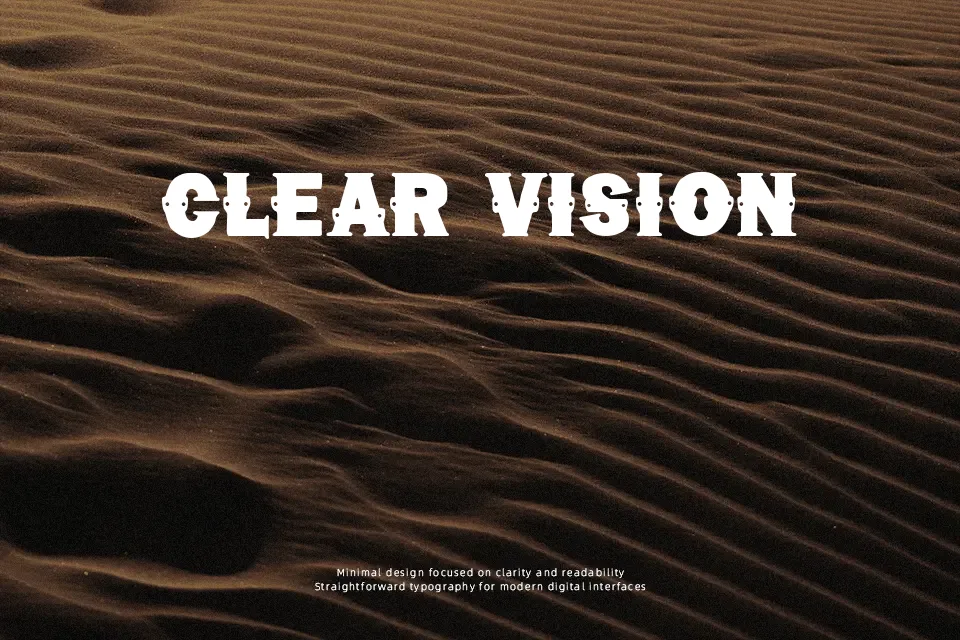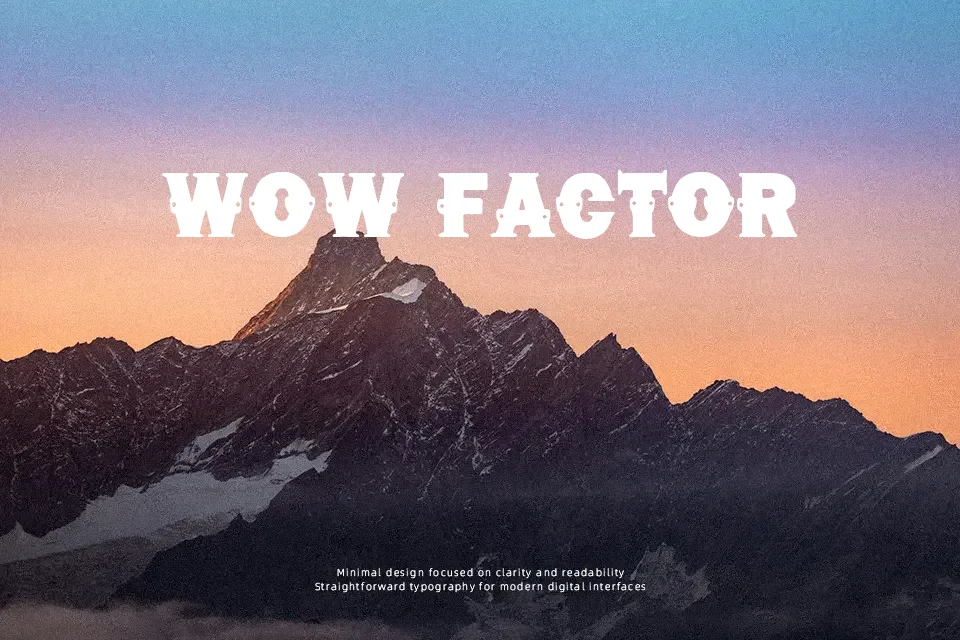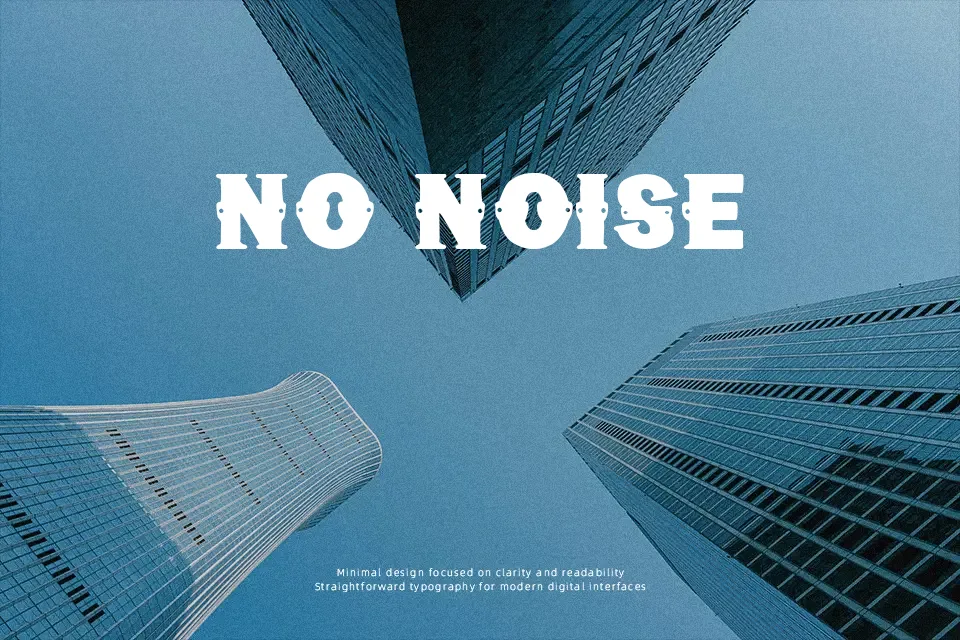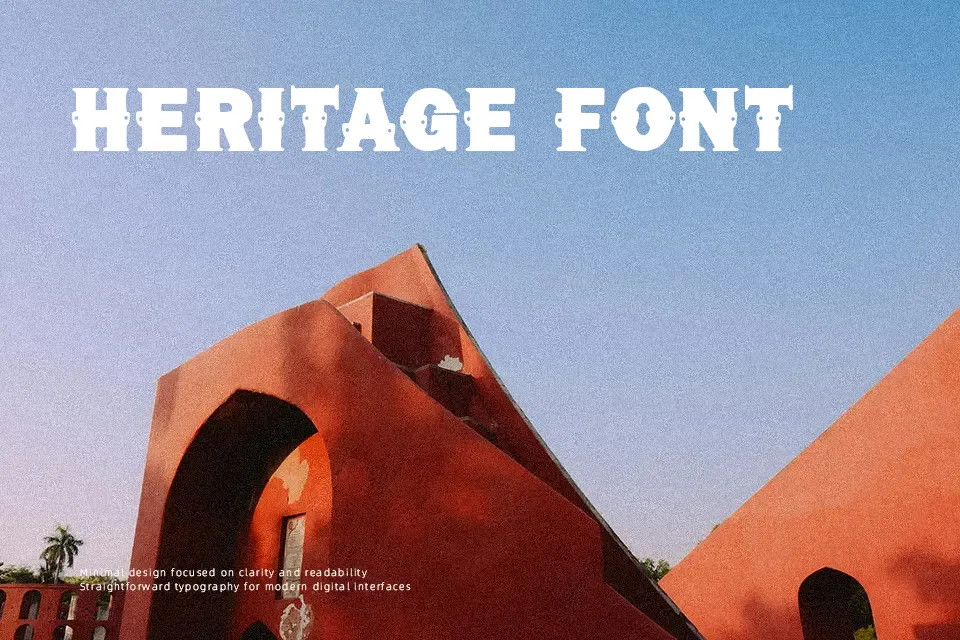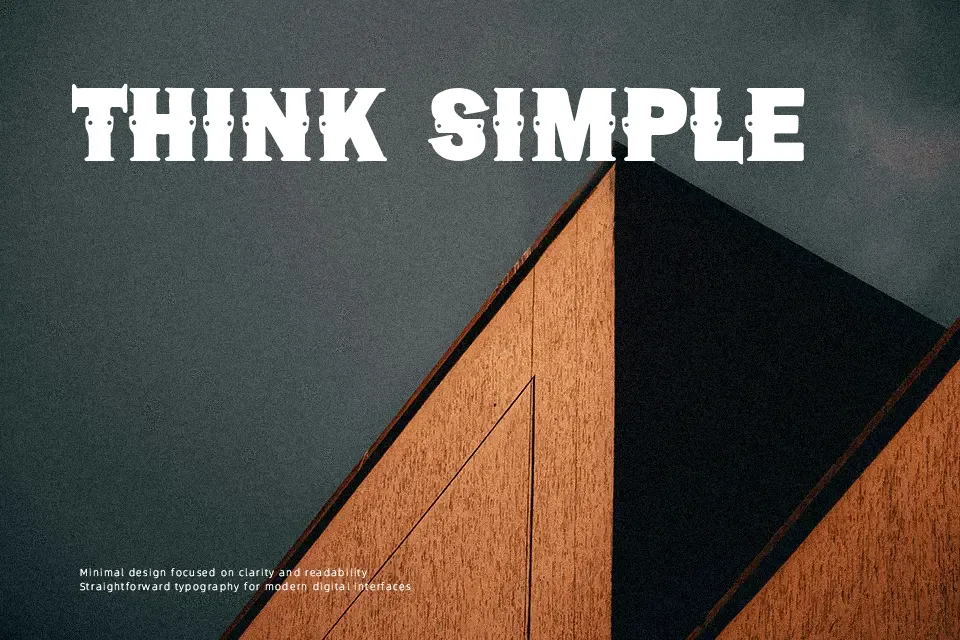
Chuck Norris Font
Featuring sturdy letterforms and pronounced geometric proportions, Chuck Norris Font delivers an imposing visual presence across large-format media. The typeface incorporates thick, uniform stroke weights paired with compact letter spacing, generating substantial density within short text arrangements. Broad capitals and squared terminals reinforce its rugged demeanor, making the design particularly effective for athletic branding, rustic signage, and music festival merchandise. However, the heavy stroke mass and tight tracking significantly reduce reading comfort in continuous editorial paragraphs or compact user interface elements. Spacing remains well balanced for title scales, but smaller sizing causes interior counters to close up.
Best For: sports apparel graphics, vintage event posters, rustic restaurant signage, headline banners
Not Ideal For: continuous book text, mobile application interfaces, legal documentation, dense spreadsheet tables
Perfect for branding, headline, and packaging, with a bold and decorative style.